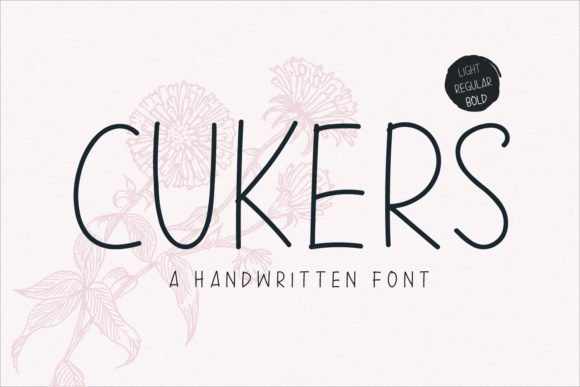
The Perfect Handwritten Touch: Introducing Cukers Font
You’ve spent hours pouring over your latest design project, and finally, it’s all coming together. The colors are just right, the layout is balanced, and the text is… well, that’s where things get a little tricky. Sometimes, the right font can make all the difference in elevating your design from good to great. That’s why we’re excited to introduce you to Cukers Font, a beautiful handwritten sans serif font designed to add a personal touch to your text.
With its unique, handcrafted feel, Cukers Font is perfect for adding a touch of whimsy to your designs. Available in regular, bold, and italic styles, this versatile font is ideal for a wide range of projects, from wedding invitations to food labels. Whether you’re a seasoned designer or just starting out, Cukers Font is a valuable addition to your toolkit, offering endless possibilities for creativity and self-expression.
Cukers Font Key Features
- Font Family: Cukers Font is a unique, hand-drawn font family with a playful and modern feel.
- Character Set: Includes a wide range of characters, including Latin, Cyrillic, and Greek alphabets, as well as punctuation and symbols.
- Unique Characteristics: Features a distinctive, hand-drawn style with subtle texture and imperfections, giving it a unique and human touch.
Cukers Font Review
Cukers Font is a unique and playful font that catches the eye. I love its quirky charm and the way it adds a touch of whimsy to any design. ✨ The font’s flexibility makes it suitable for a wide range of projects, from children’s books to brand identities.
- Customizable: Cukers Font offers a range of options for customization, allowing designers to tailor the font to their specific needs.
- Fun and quirky: The font’s playful personality makes it perfect for projects that need a bit of flair.
- High-quality: The font’s design is well-executed and visually appealing, making it a great choice for designers who want a high-quality font.
- Readability: At smaller font sizes, Cukers Font can become difficult to read, especially for those with visual impairments.
- Lack of versatility: While Cukers Font is great for playful projects, it may not be the best choice for more serious or professional designs.
- Overuse: The font’s unique style can become overwhelming if overused, so designers should use it sparingly.
Overall, Cukers Font is a solid choice for designers who want a fun and quirky font. While it has its limitations, it’s a great addition to any design toolkit. With careful use, Cukers Font can add a touch of personality to any project.
Common Use Cases for Cukers Font
Cukers Font is ideal for use in creative and artistic projects, such as:
- Infographics
- Brochures
- Posters
- Business cards